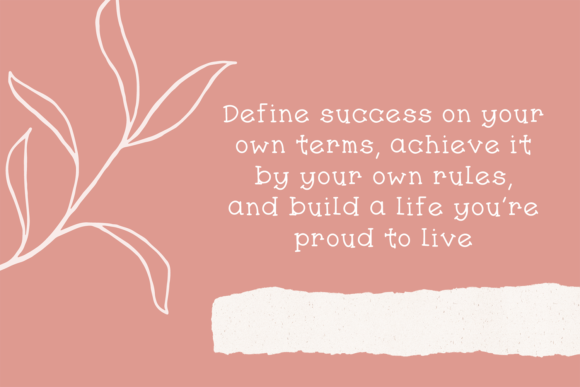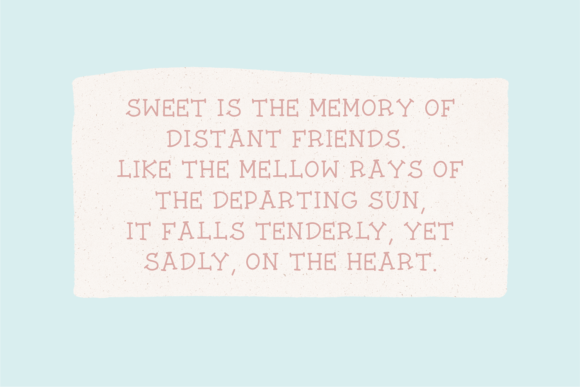
Discover the Charm of Charlie Rose Font: Elevate Your Designs with a Cute and Quirky Serif Font
Are you tired of using the same old fonts in your designs? Look no further than the Charlie Rose Font, a delightful and charming serif font that’s sure to add a touch of personality to your projects. With its unique blend of cuteness and quirkiness, this font is perfect for designers and crafters looking to create visually stunning and engaging designs.
What Makes Charlie Rose Font So Special?
Charlie Rose Font is a serif font that’s both readable and friendly, making it an excellent choice for a wide range of design projects. Its cute and quirky style is sure to capture the attention of your audience and leave a lasting impression. Whether you’re working on a logo, brochure, or website, this font is confident to make each of your designs look gorgeous.
One of the standout features of Charlie Rose Font is its versatility. It’s perfect for use in a variety of design projects, from digital designs like social media graphics and website headers to print materials like business cards and flyers. Its unique style is sure to add a touch of personality to any design, making it stand out from the crowd.
The Benefits of Using Charlie Rose Font
So, why should you choose Charlie Rose Font for your next design project? Here are just a few benefits of using this amazing font:
- Readability: Charlie Rose Font is incredibly readable, even at small sizes. This makes it perfect for use in body text, captions, and other applications where legibility is key.
- Uniqueness: With its cute and quirky style, Charlie Rose Font is sure to add a touch of personality to your designs. It’s a great way to stand out from the crowd and create designs that are truly memorable.
- Versatility: Charlie Rose Font can be used in a wide range of design projects, from digital designs to print materials. Its unique style is sure to complement any design, making it a great addition to your font library.
How to Use Charlie Rose Font in Your Designs
Using Charlie Rose Font in your designs is easy. Here are a few tips to get you started:
- Pair it with other fonts: Charlie Rose Font pairs perfectly with other fonts, including sans-serif fonts like Arial and Helvetica. Experiment with different font combinations to create unique and visually stunning designs.
- Use it in headlines and titles: Charlie Rose Font is perfect for use in headlines and titles, where its cute and quirky style can really shine.
- Experiment with different sizes: Charlie Rose Font is readable at a wide range of sizes, from small captions to large headlines. Experiment with different sizes to find the one that works best for your design.
If you’re looking for a font that’s both cute and quirky, look no further than Charlie Rose Font. With its unique blend of readability and personality, this font is perfect for designers and crafters looking to create visually stunning and engaging designs. Add it confidently to your projects, and you’ll love the results.